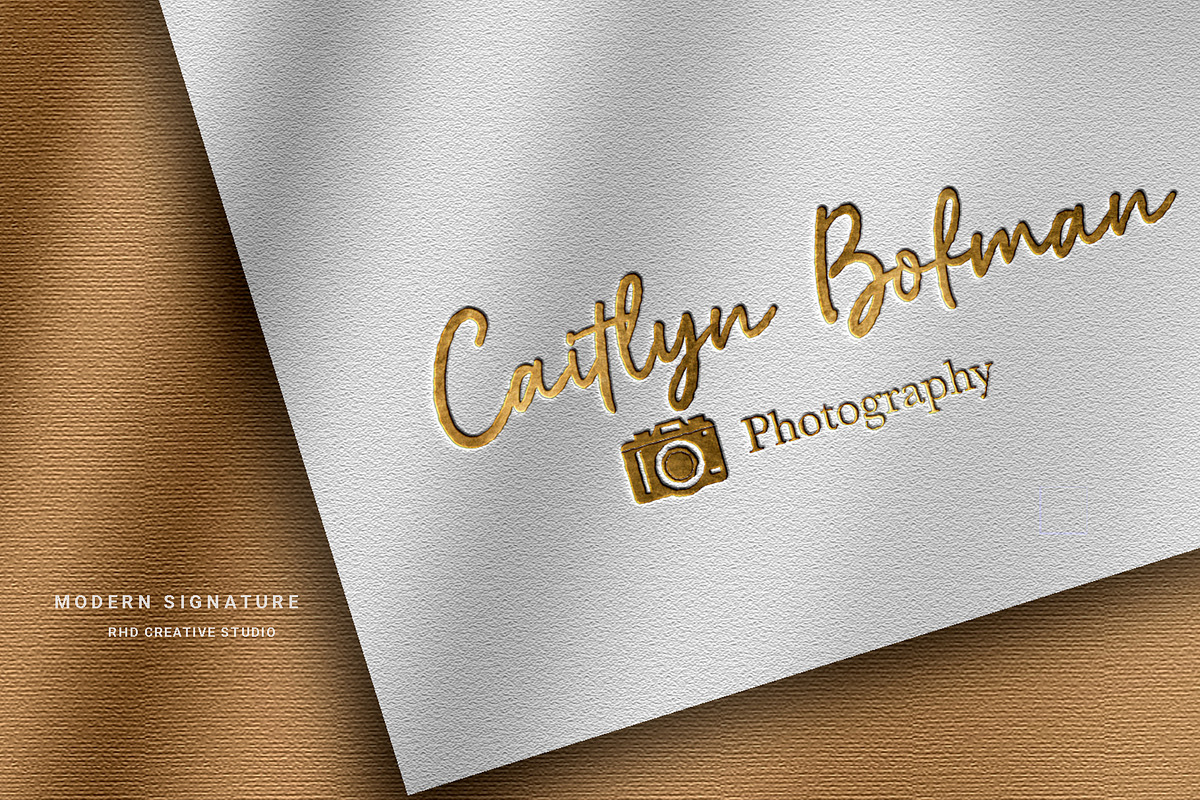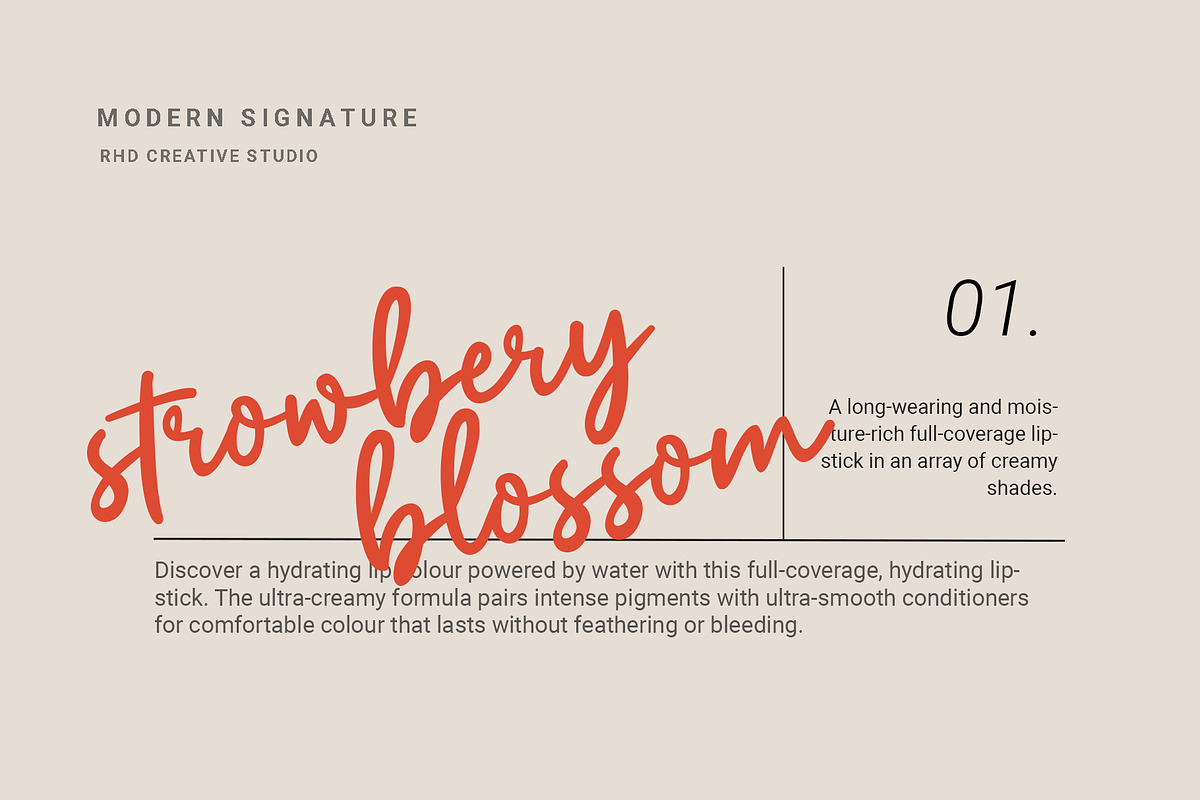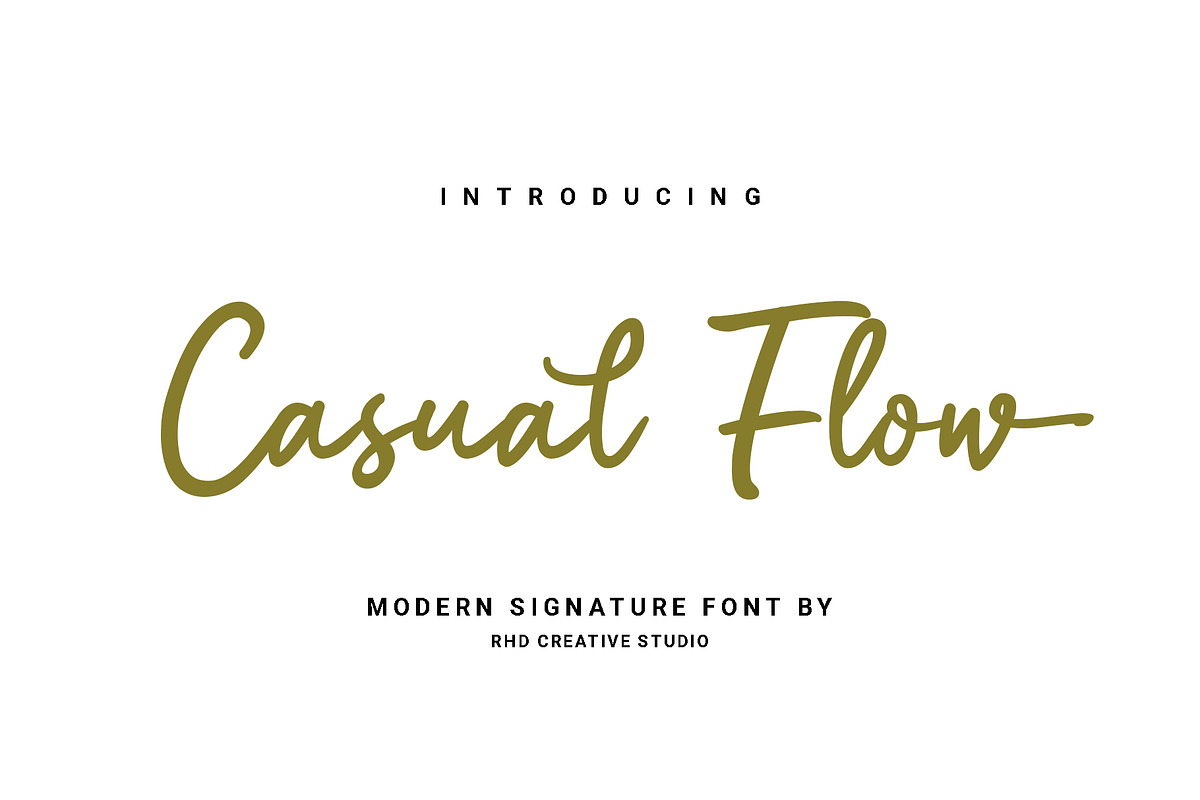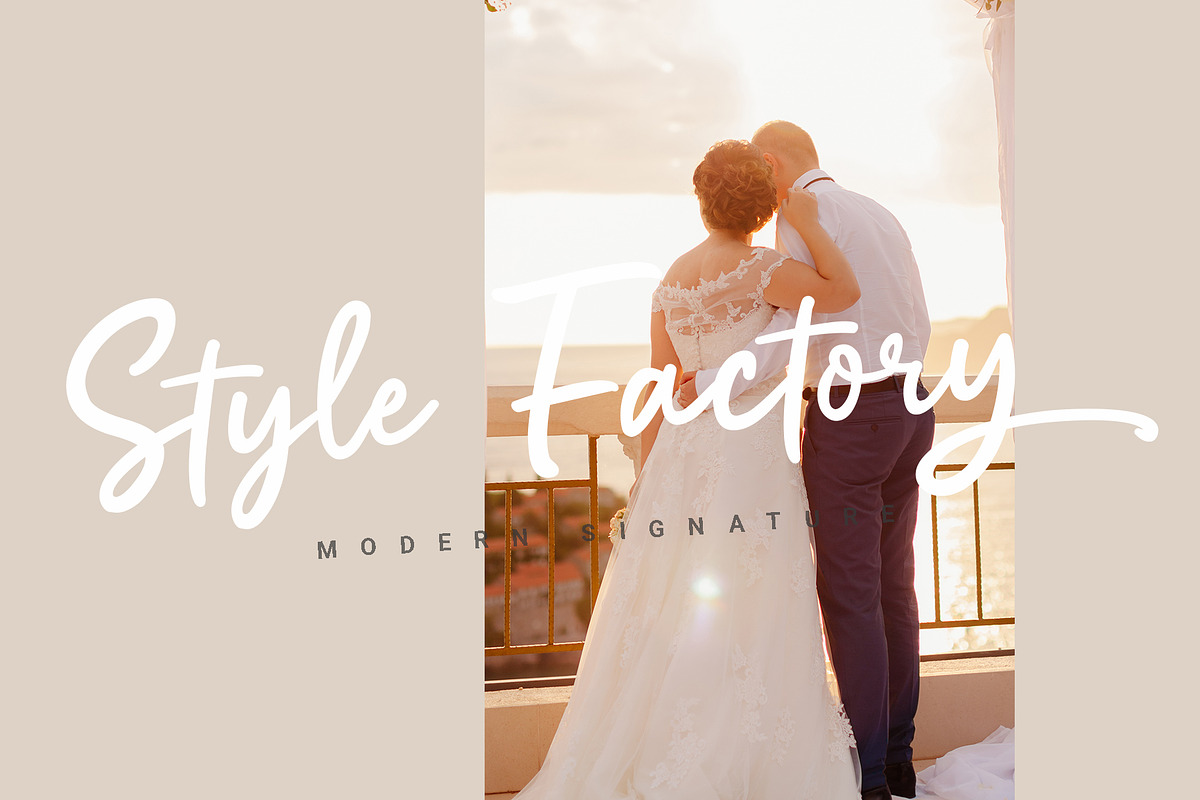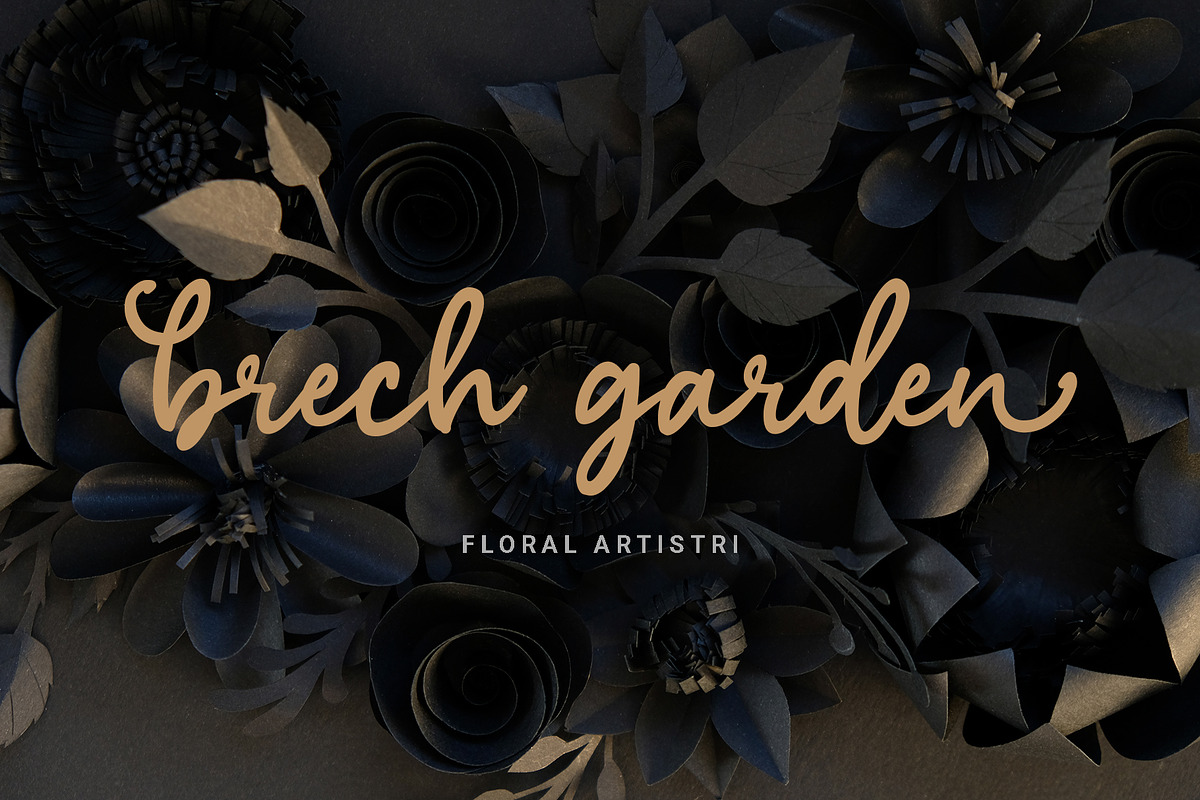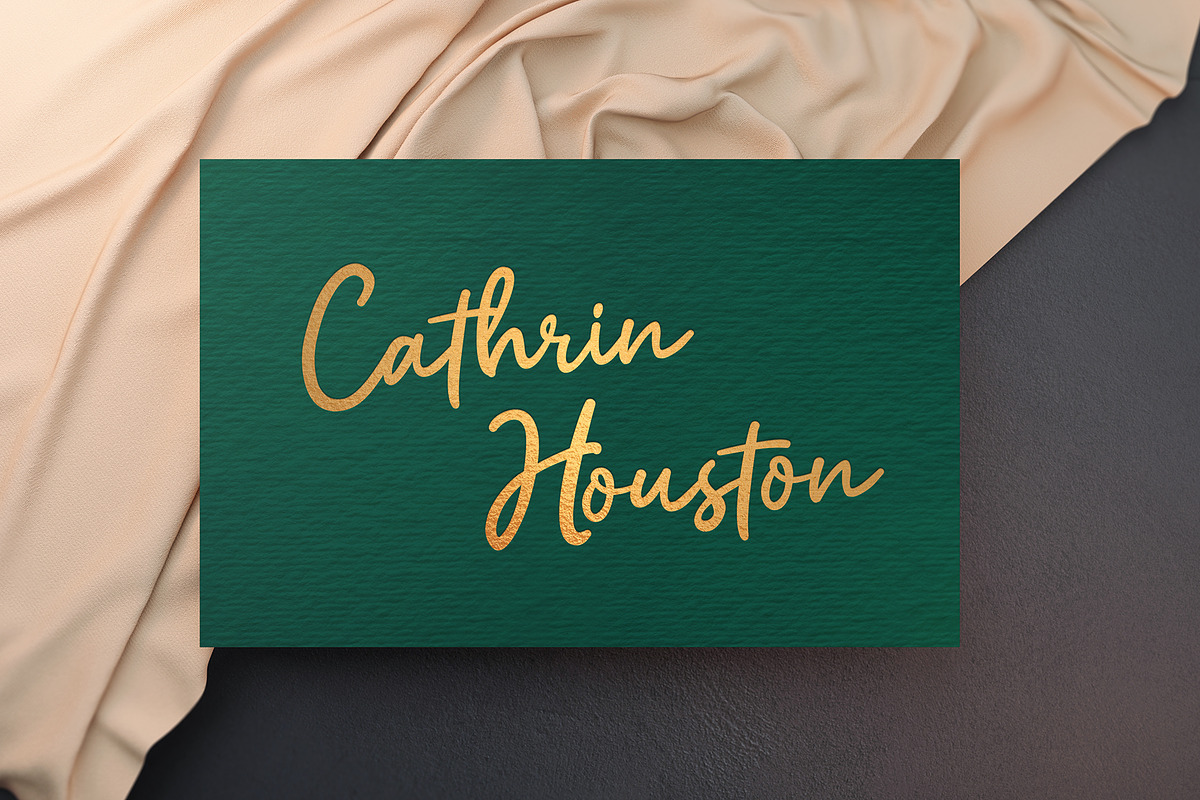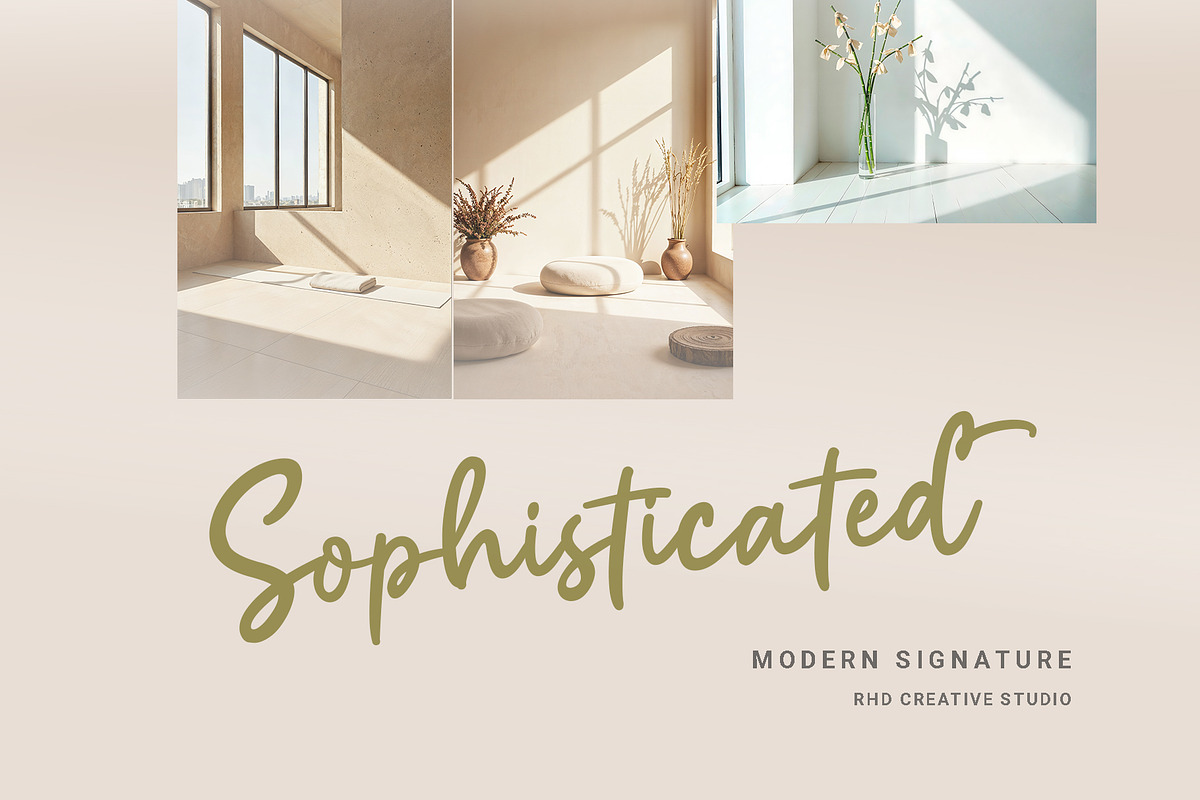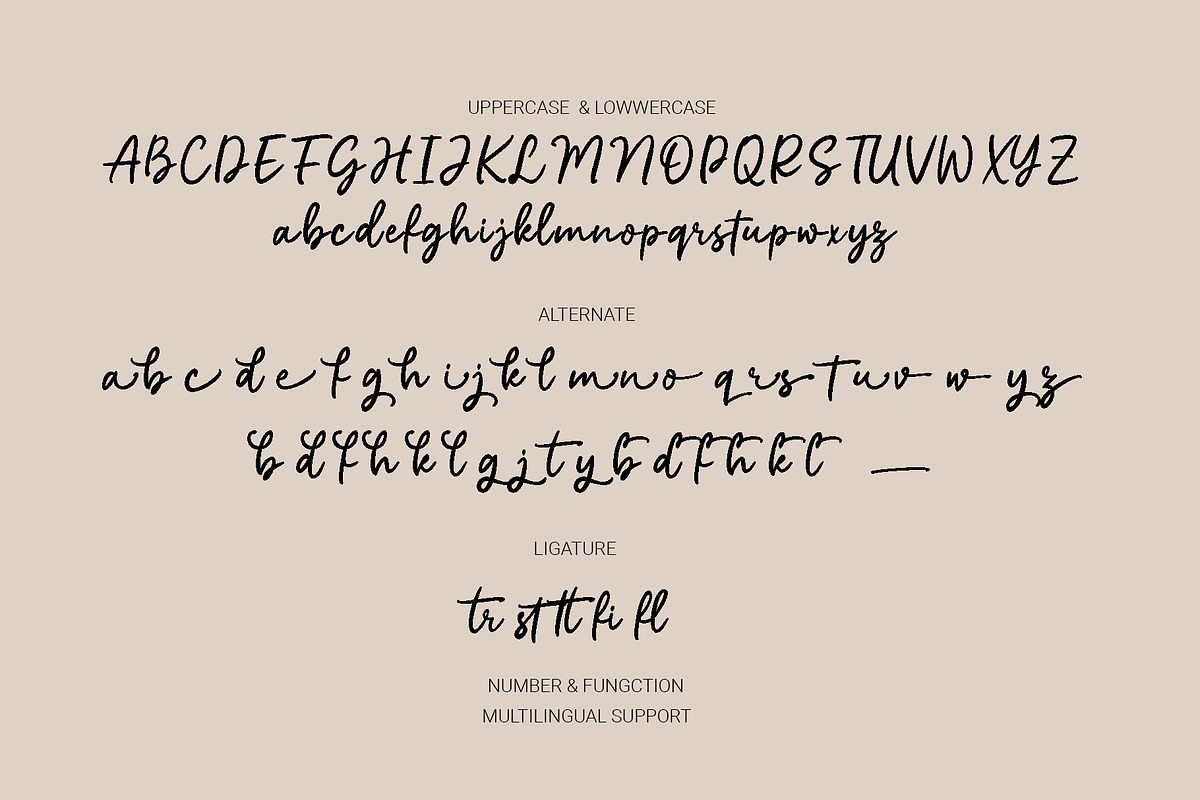
Casual Flow - Modern Signature Font
Hello everyone, I would like to introduce Casual Flow - Modern Signature Font.
Casual Flow - Modern Signature Font with Handmade character. Casual Flow - Modern Signature Font, Modern font to make your design project stand out! Casual Flow a perfectly choice for any creative endeavor, creating, modern, chic, lifestyle design such as logotype, title, cover, branding, invitations, wedding designs, display and magazine, social media posts, advertisements, printed quotes, product packaging, corporate brand, product designs, labels, photography, watermarks, special events and any other project with modern touch.
- Alternate & Ligature